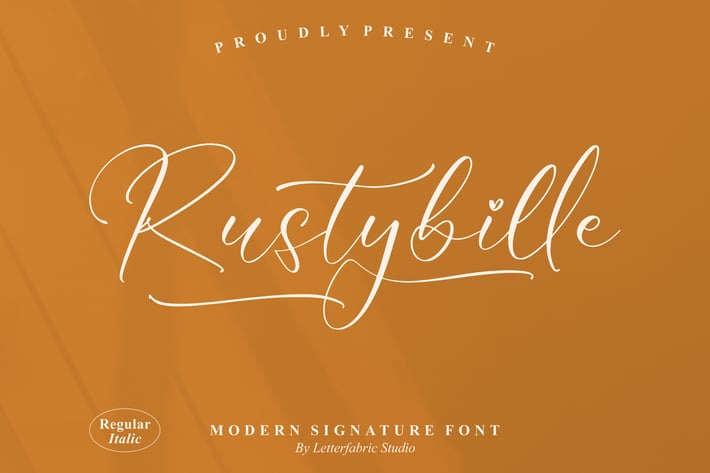
Rustybille Modern Signature Font
Rustybille is a modern signature font with delicate strokes and elegant curves, perfectly crafted for high-end branding projects. Its fluid letterforms and stylish accents make it ideal for personal branding, invitations, and sophisticated editorial designs that need a touch of grace and flair.
Elegant signature-style serif font
Includes Regular and Italic styles
Fluid, hand-crafted letterforms
Suitable for luxurious and refined projects
Personal branding & identity
Wedding invitations and stationery
High-end fashion and beauty marketing
Premium product packaging
Editorial layouts and magazine designs
Where elegance meets style — a signature font that adds personality and sophistication to every design.*